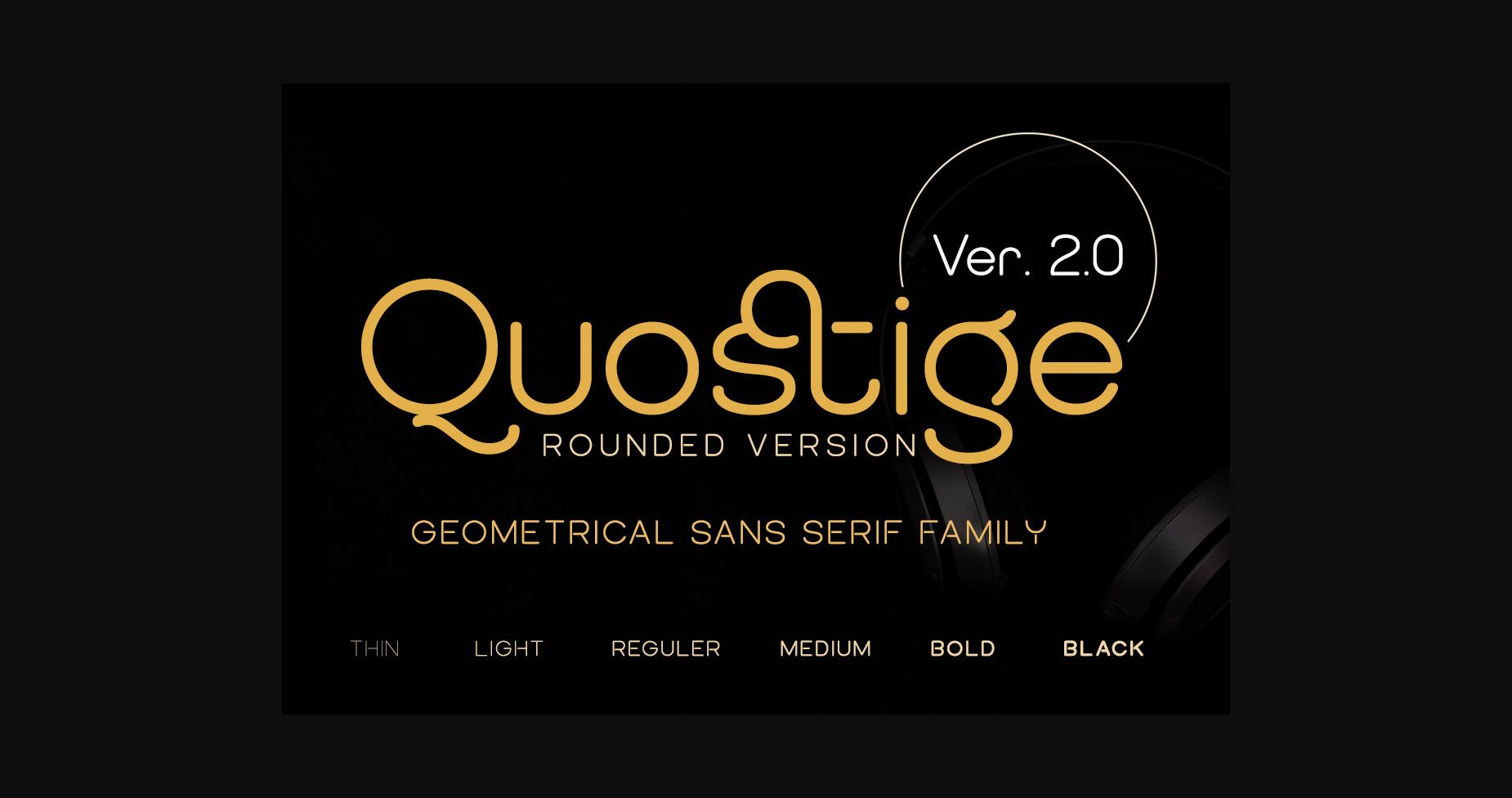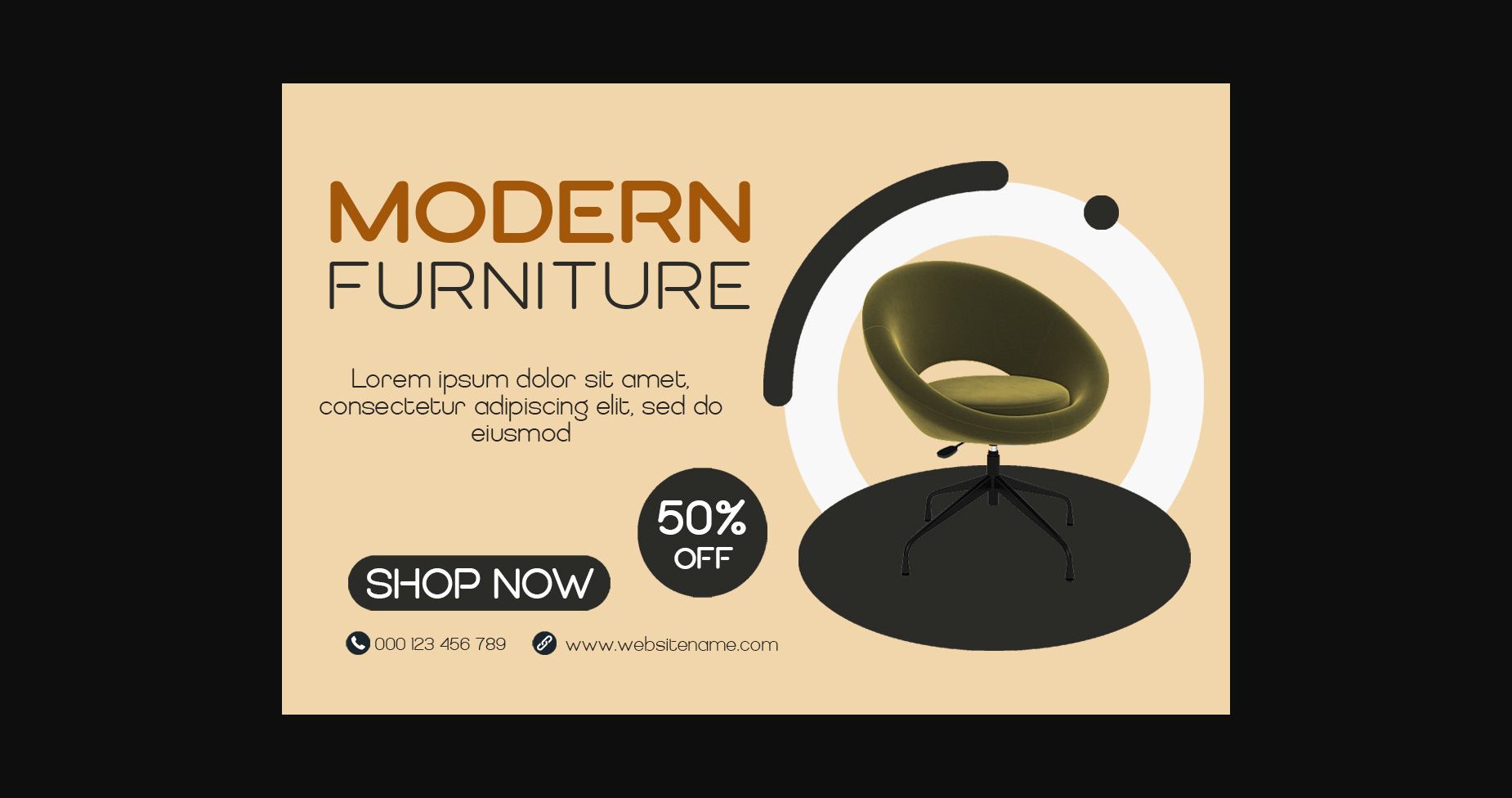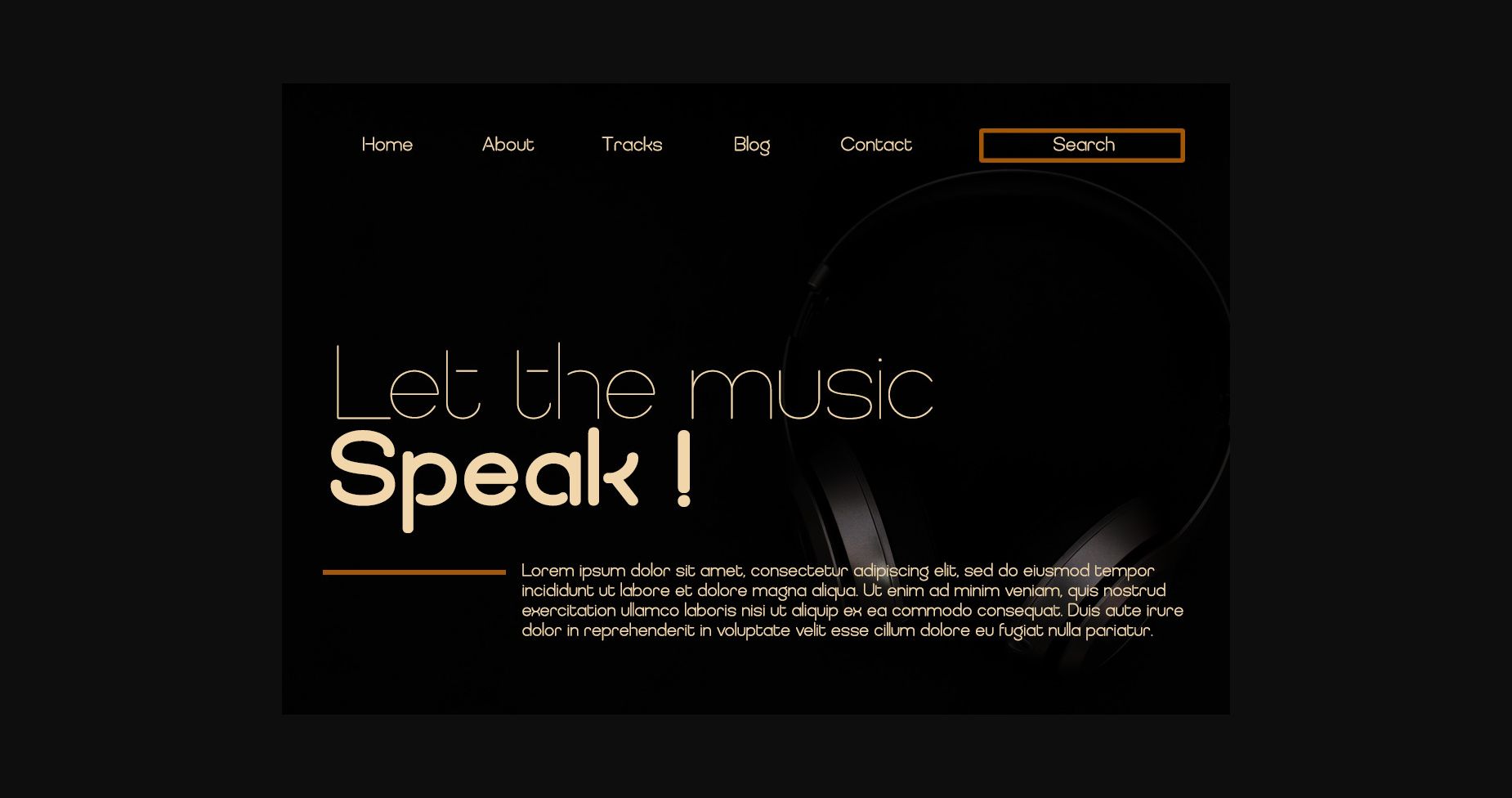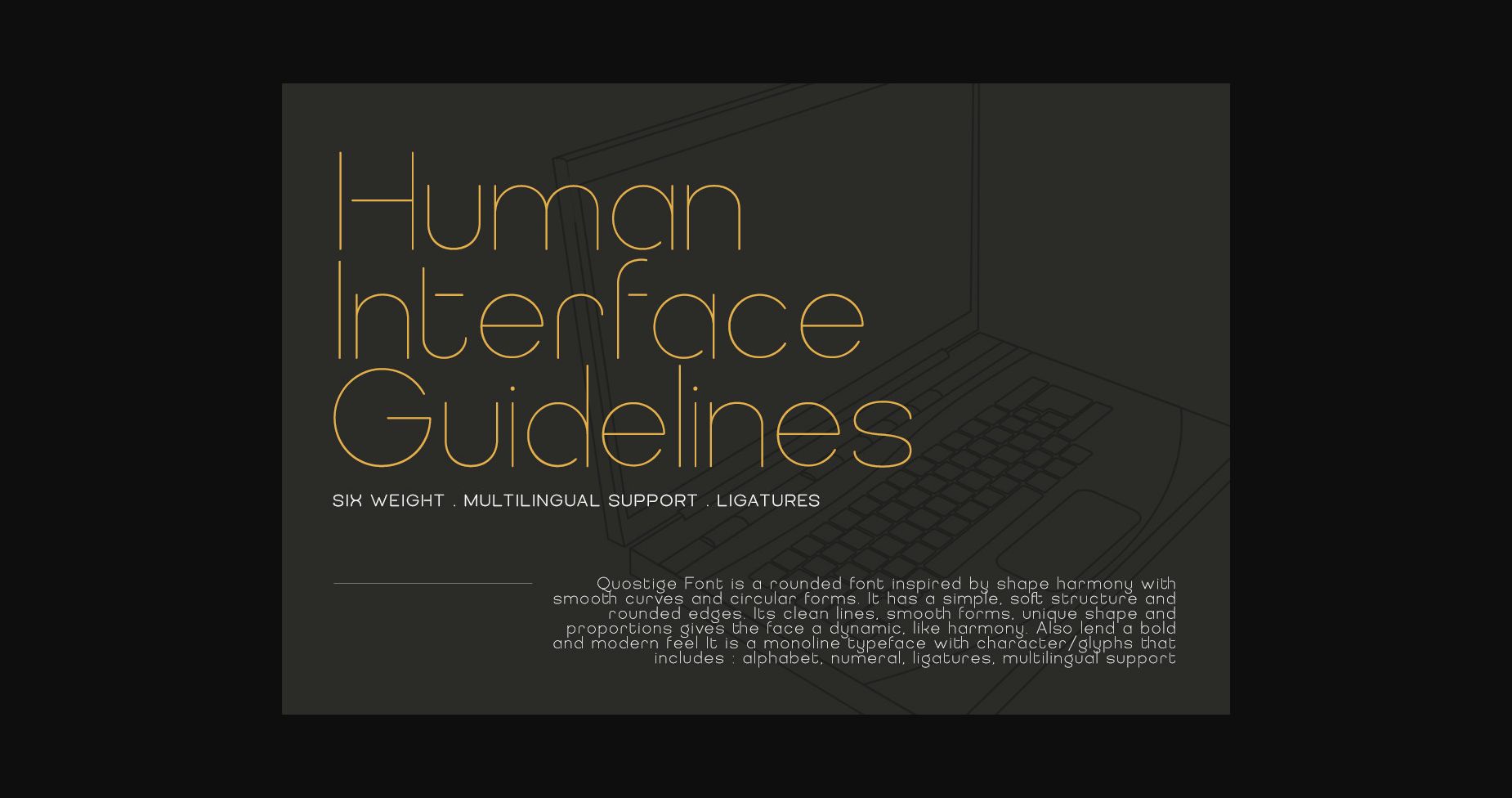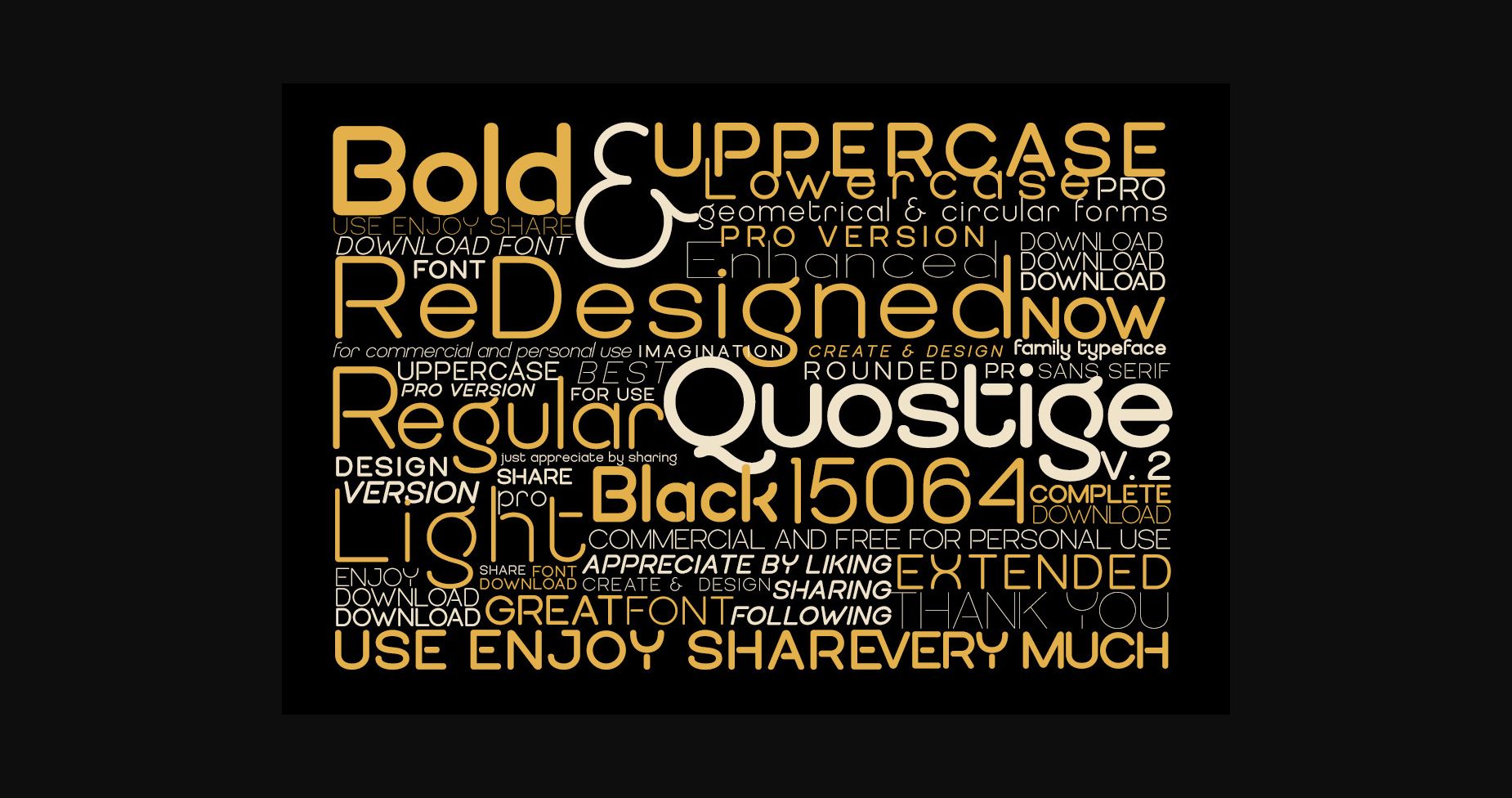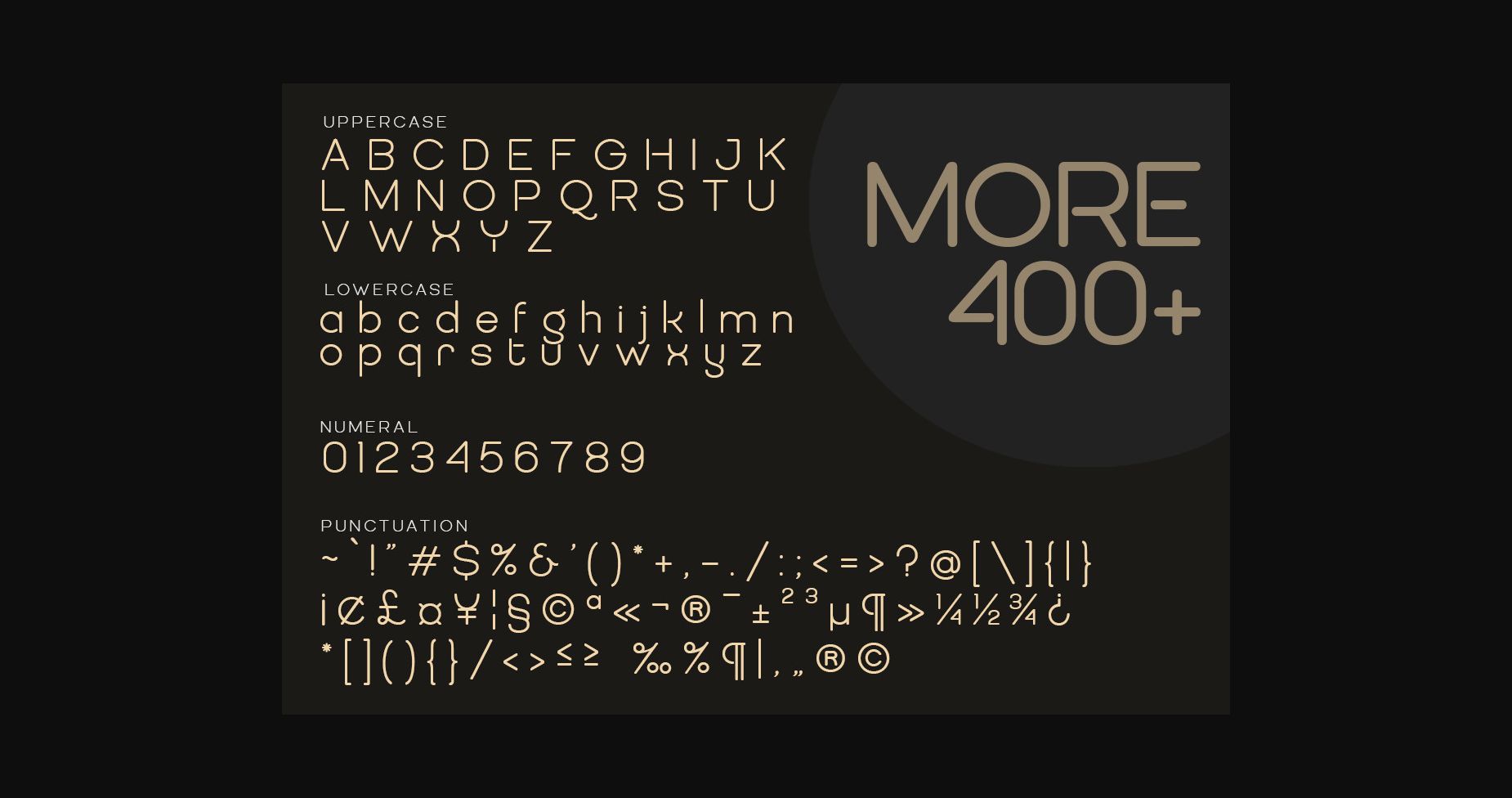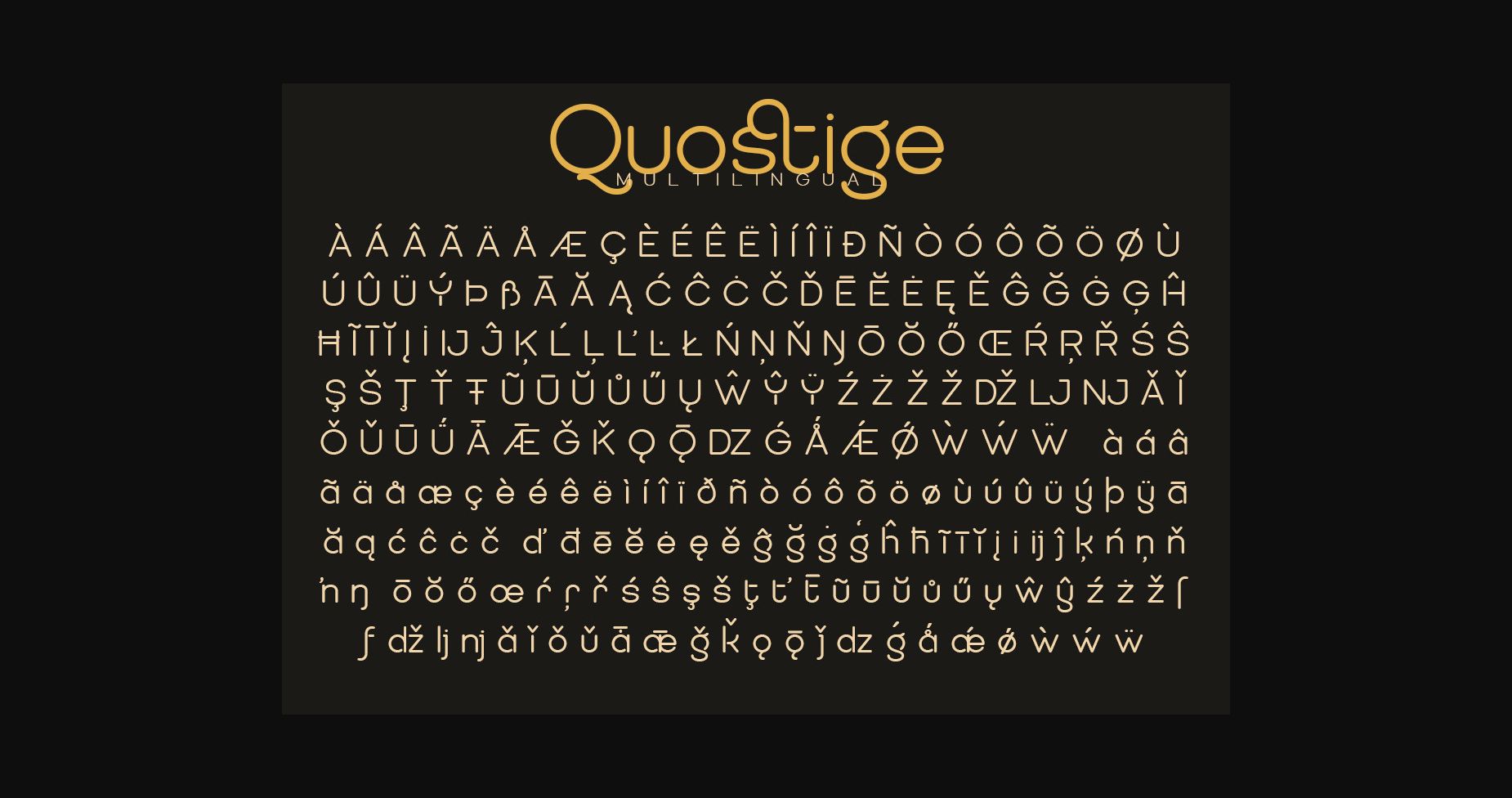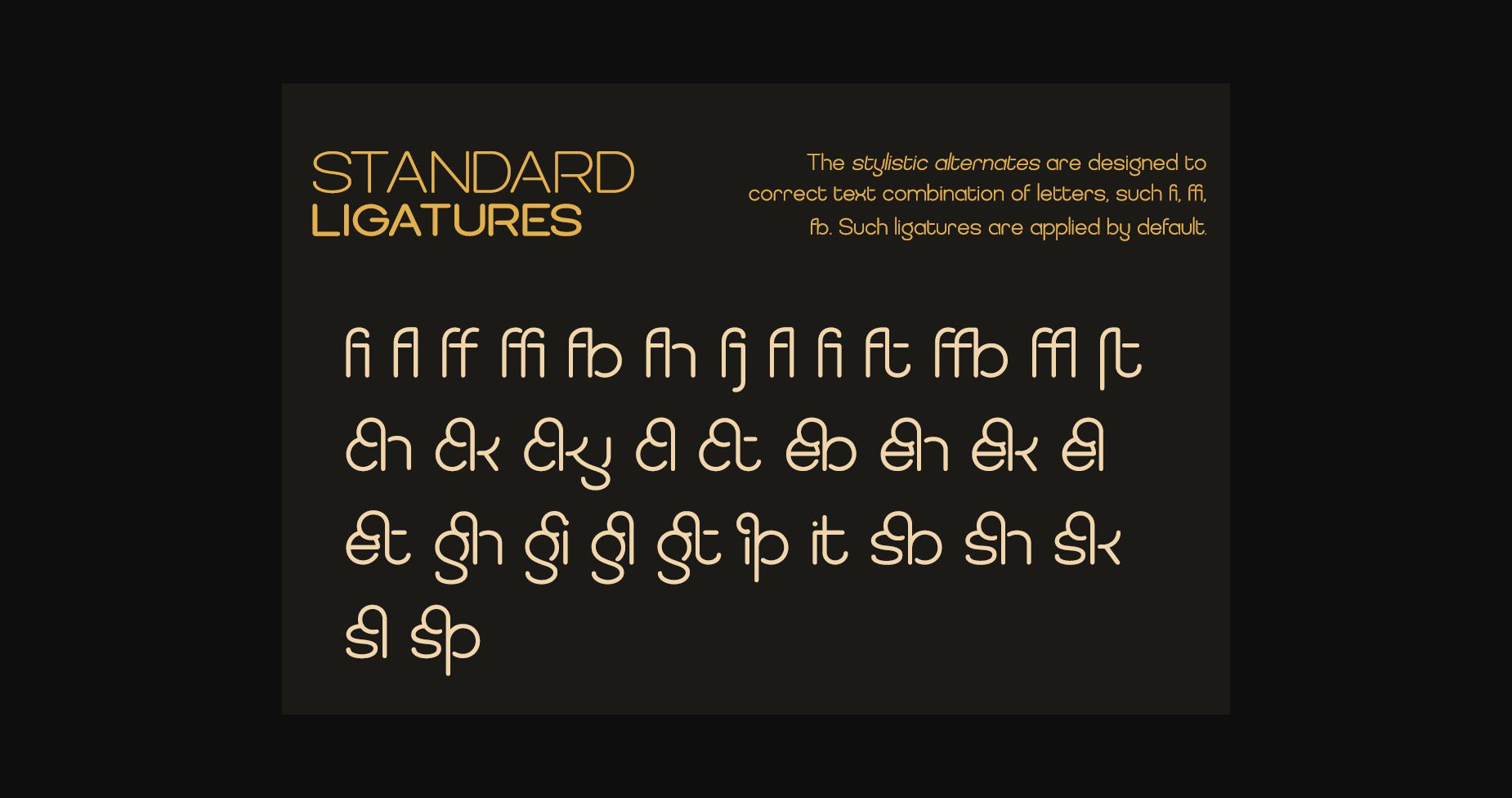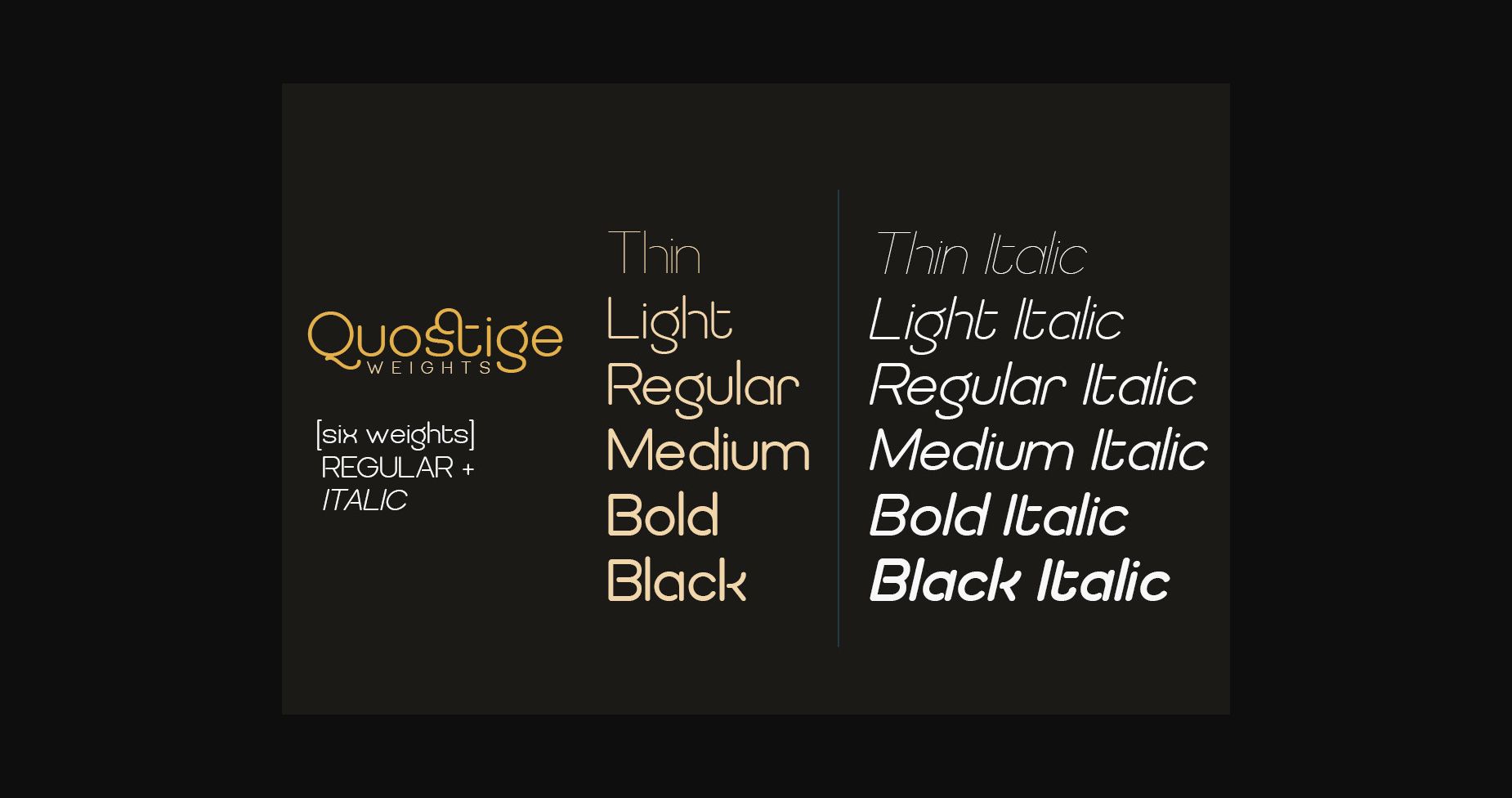
Quostige is a cool, simple and techno looking sans serif font. Modern and chic, this font will be a top choice for a wide range of creations (both formal and informal).